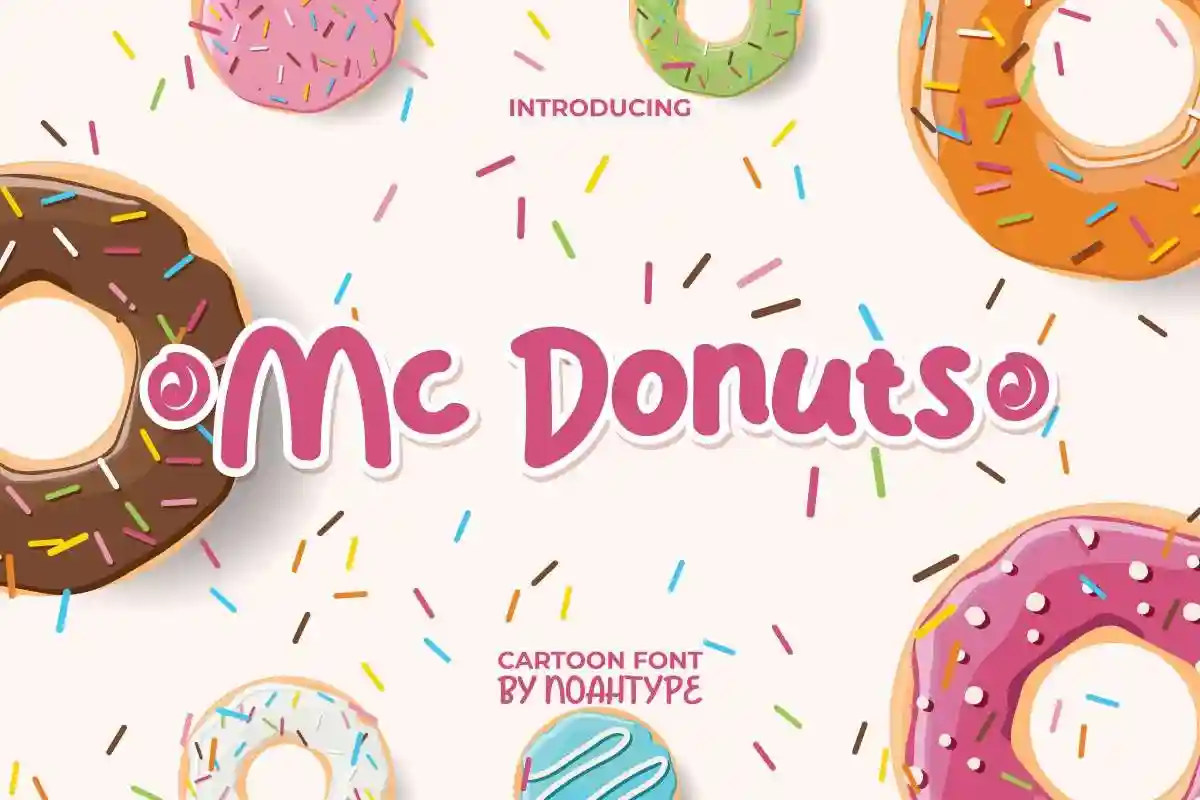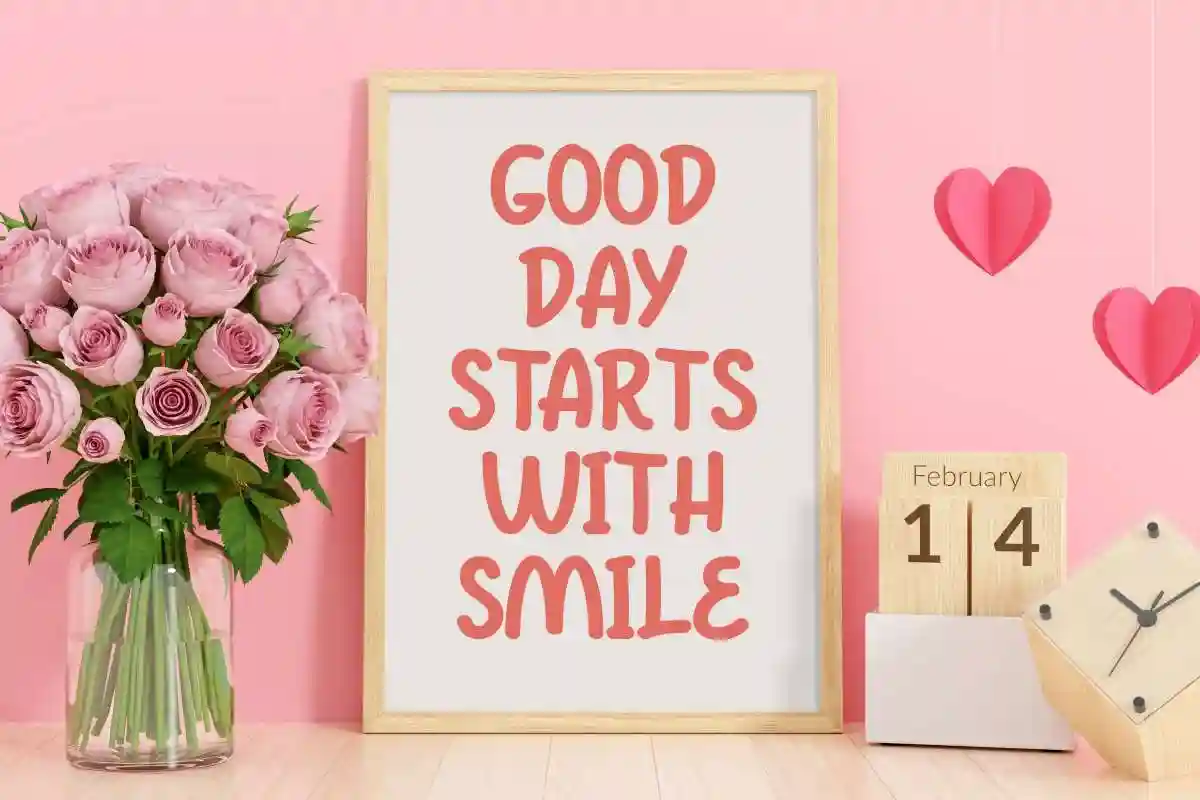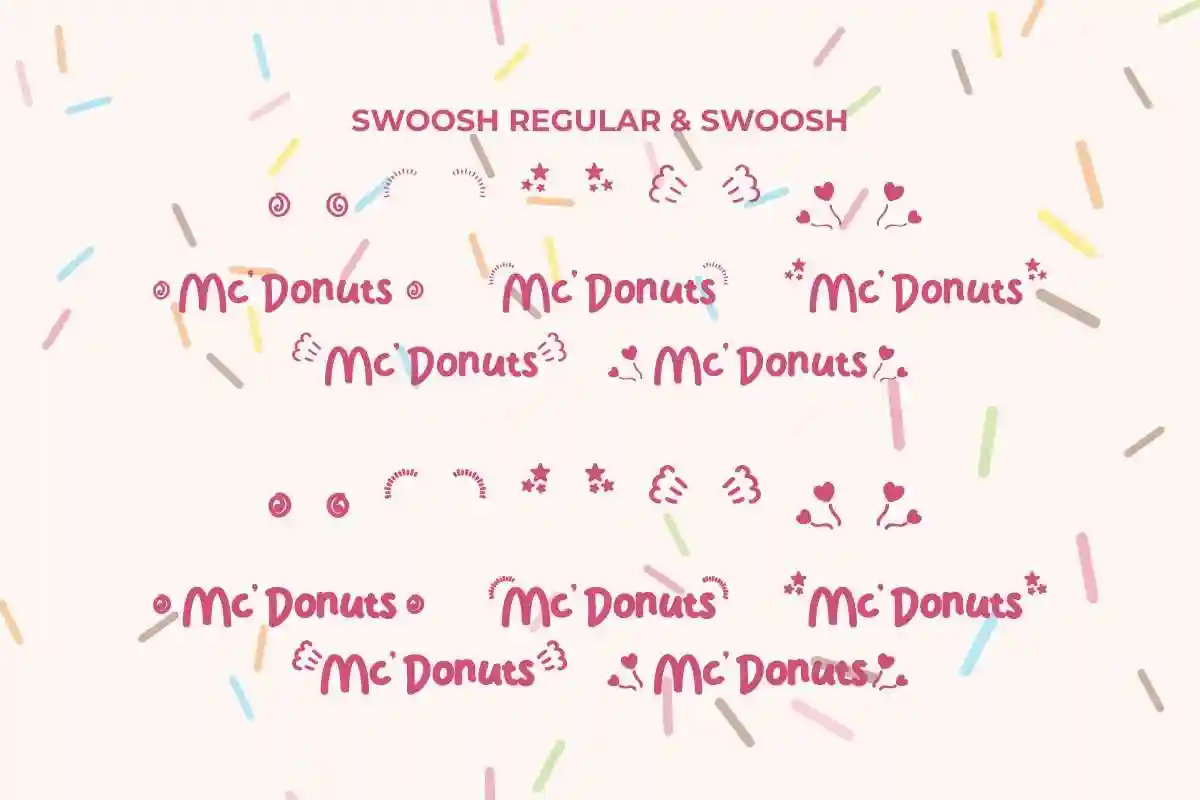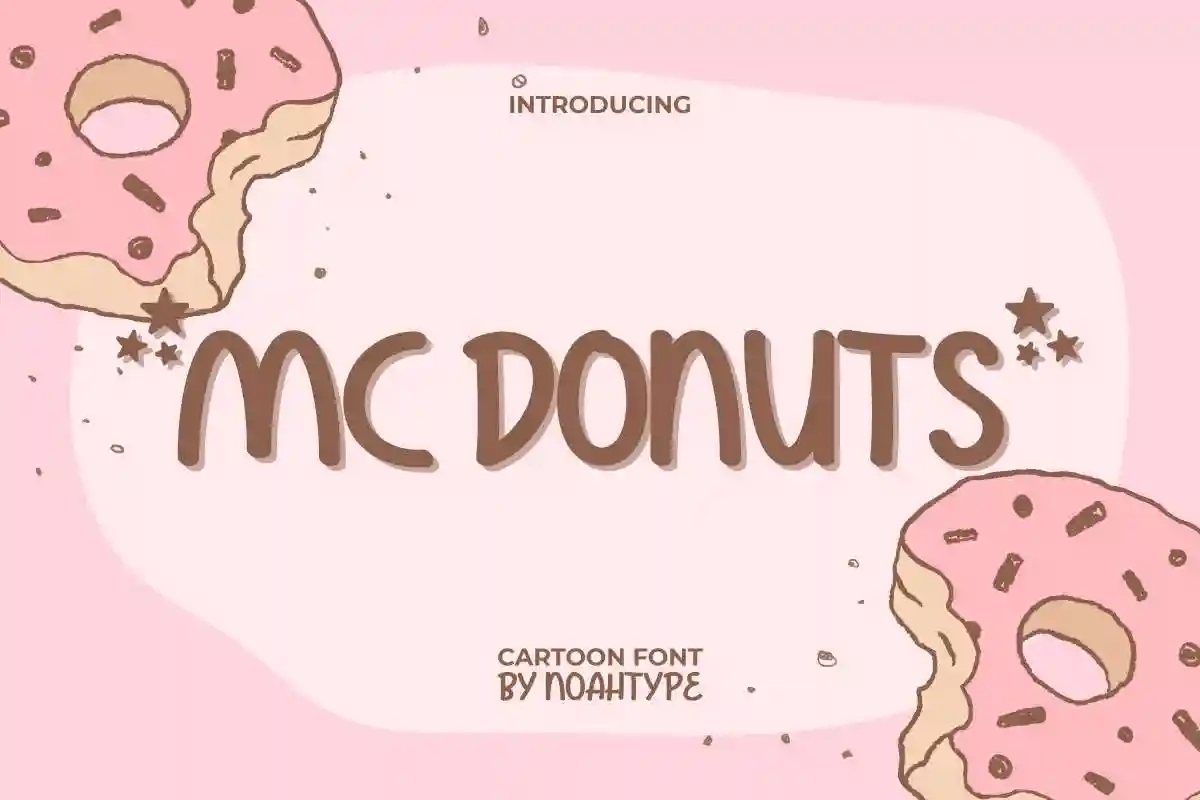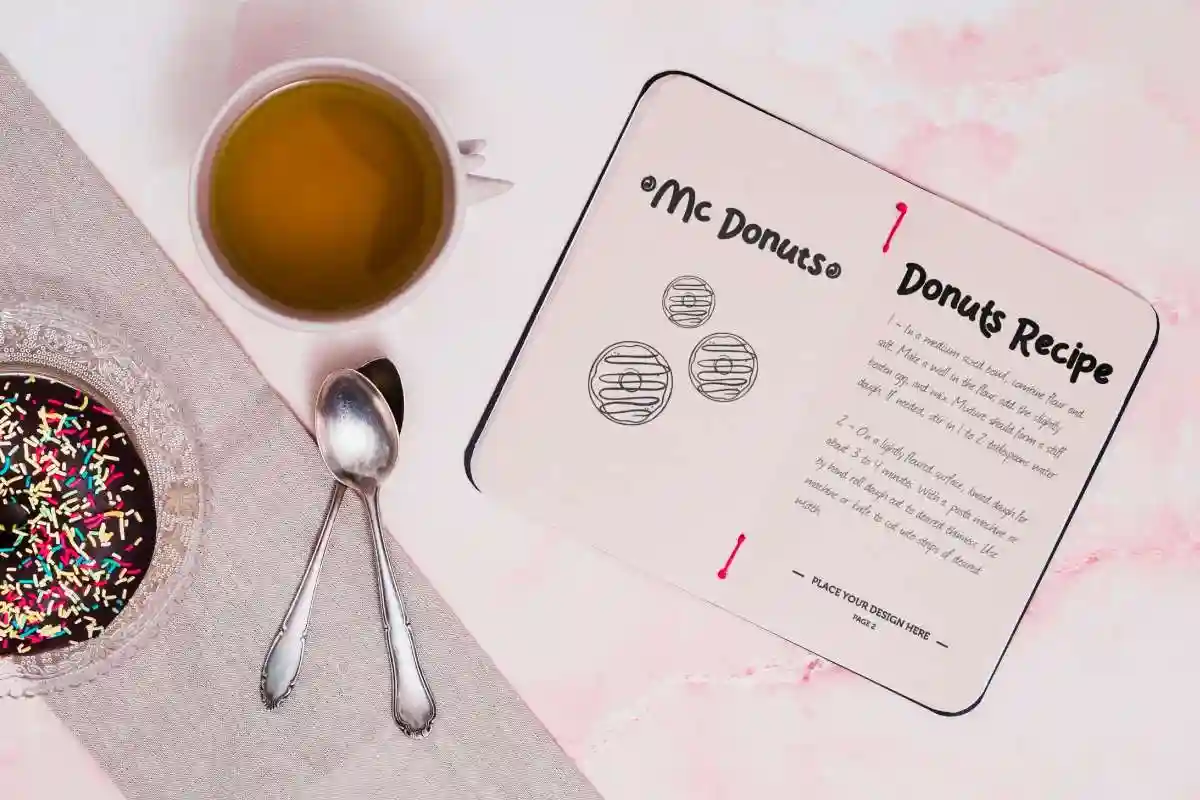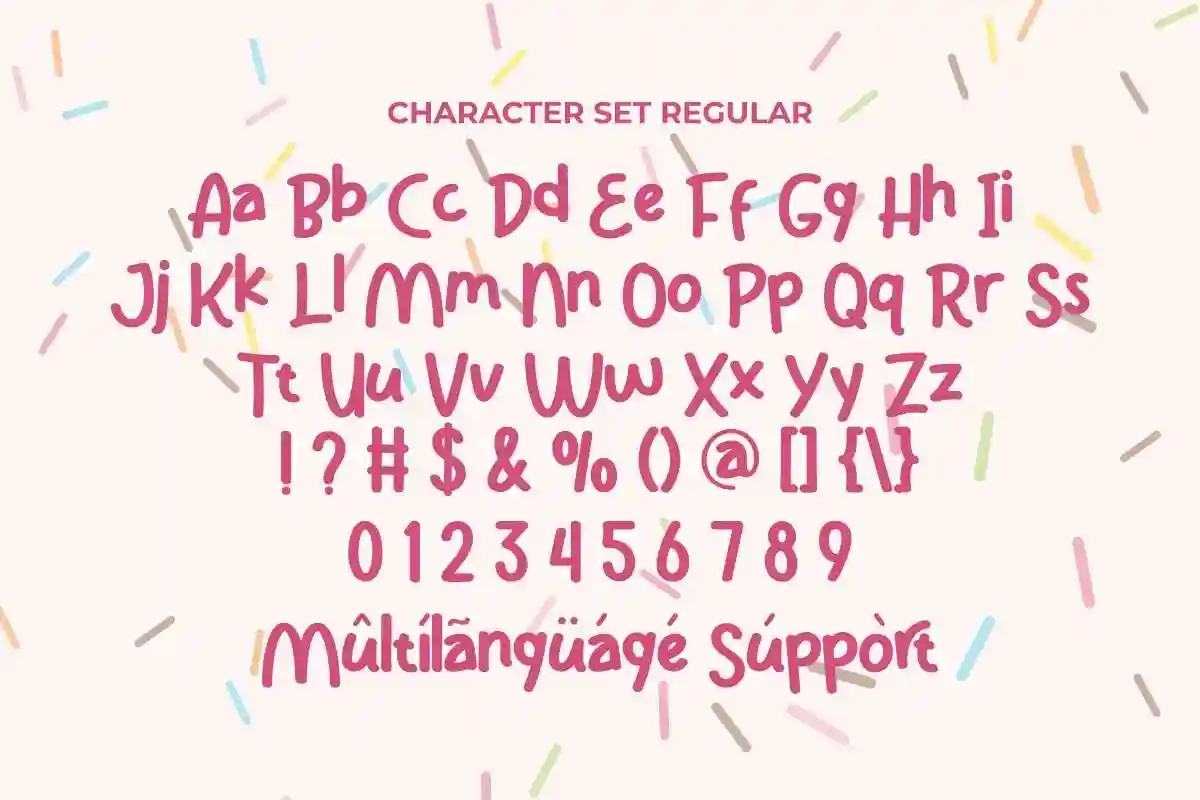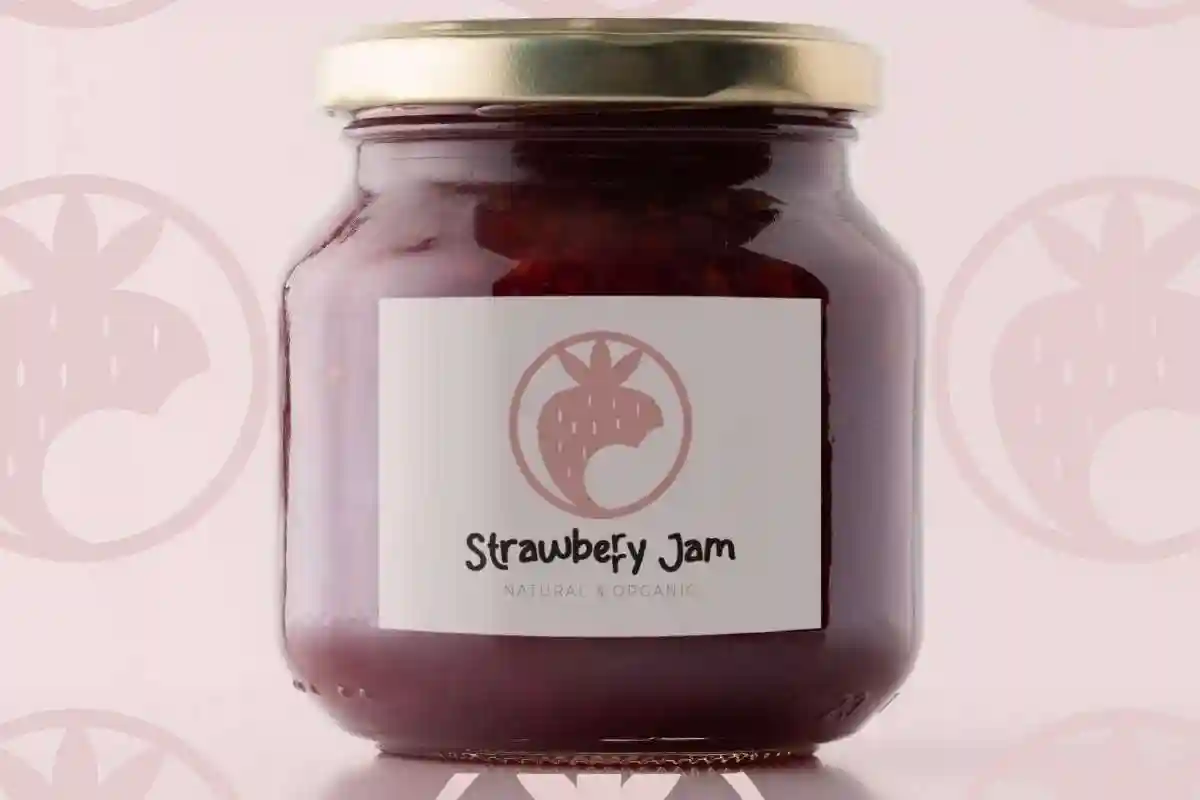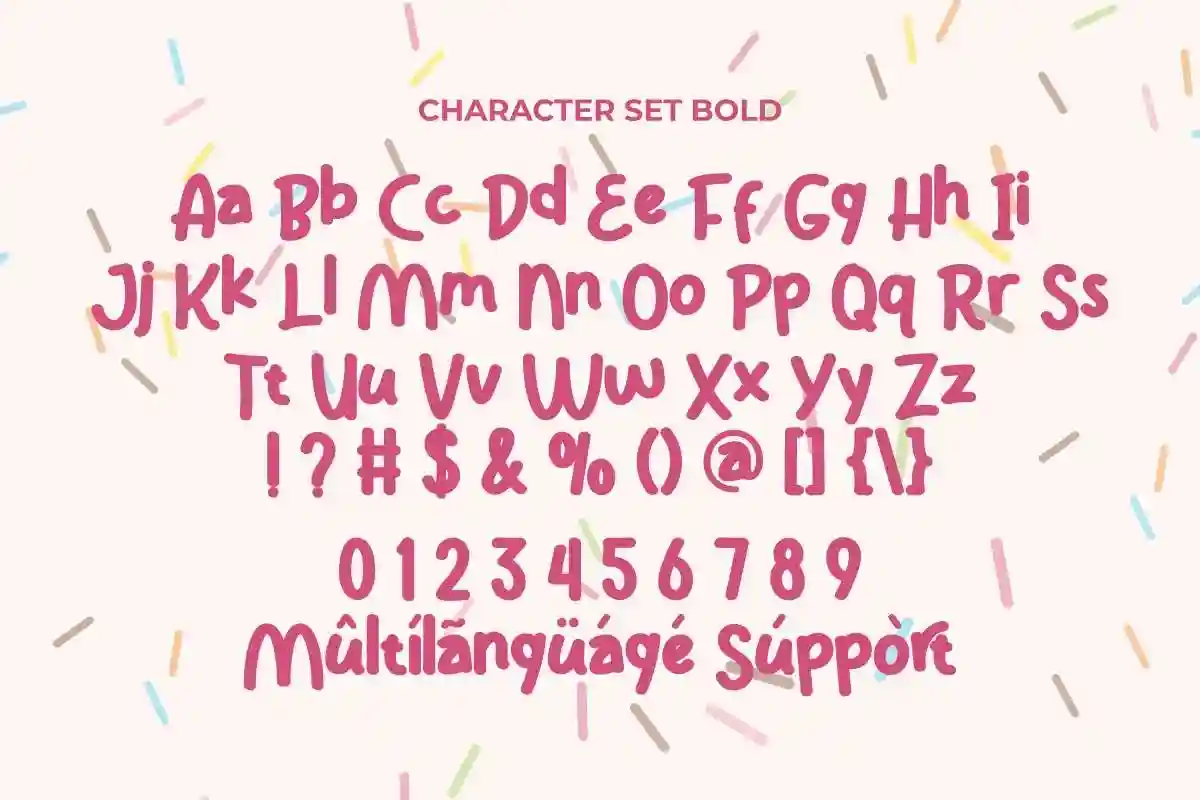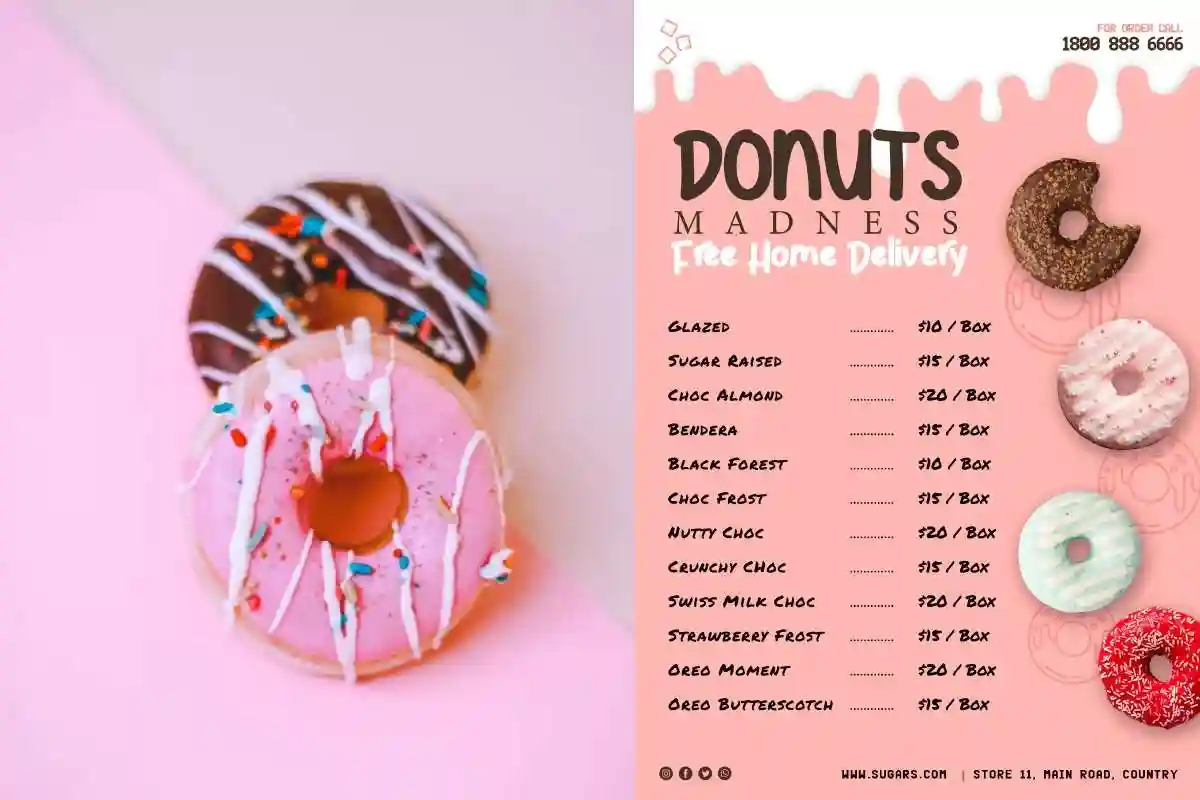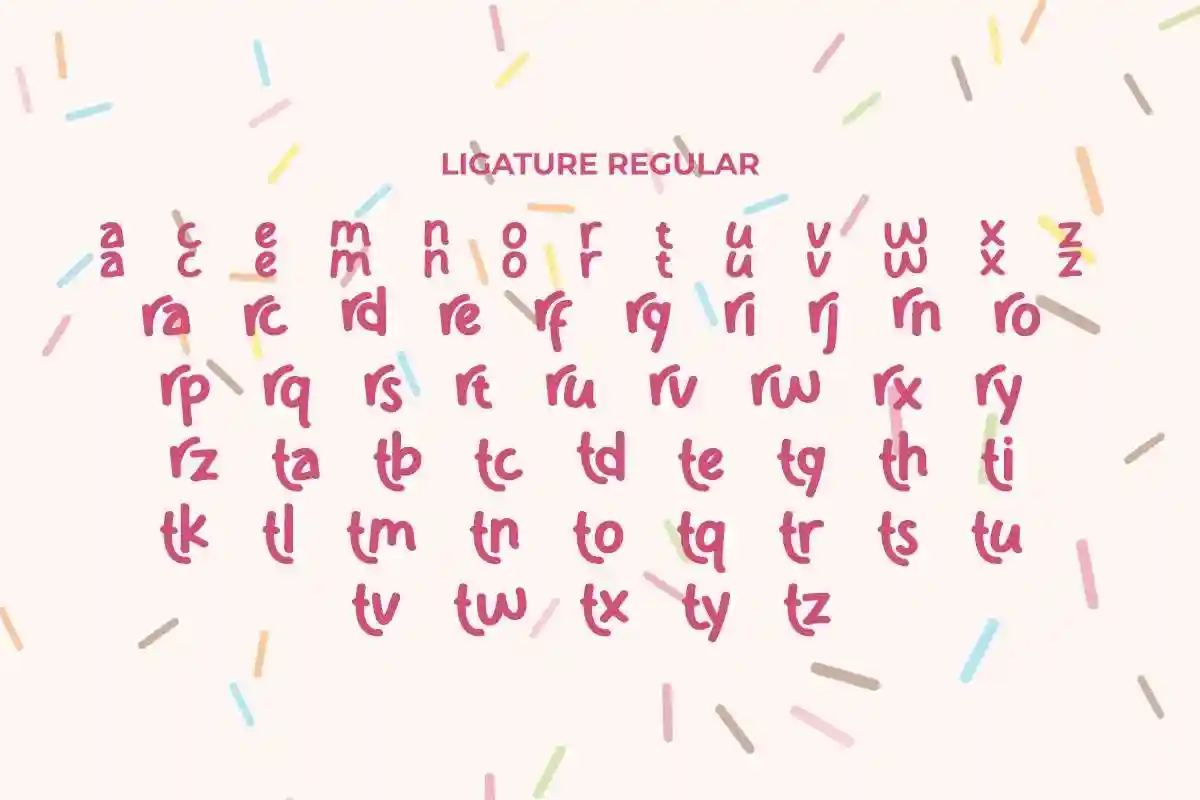
Mc Donuts Font is a sweeties playful cartoon display font with cafe foodies donut theme. The font is inspired from one of the world’s leading fast food restaurants. This font has two style font, Regular and Bold that still easily to read. It will be amazing for any projects including: billboard, blog headers, custom mug, food recipe, label, menu sheet, product packaging, quote, title, and many more.
Mc Donuts Font includes full set of Uppercase and Lowercase Basic Characters, Numerals, Punctuation, Ligatures to make it flawless characters to perfectly make awesome look that add more cute and fun fonts to your extraordinary project. It’s perfect for any industry: bakery, cake, candy, cooking class, fast food, pastry, restaurant, valentine’s day, and many more.
Mc Donuts Font supports multilingual languages (including multiple currency symbols) with a simple installation, also have swoosh characters options that you can select and use to make it standout. The font will be ready to use both on Windows machine or Mac. It work well on Adobe software such as Illustrator, Photoshop and several other software.